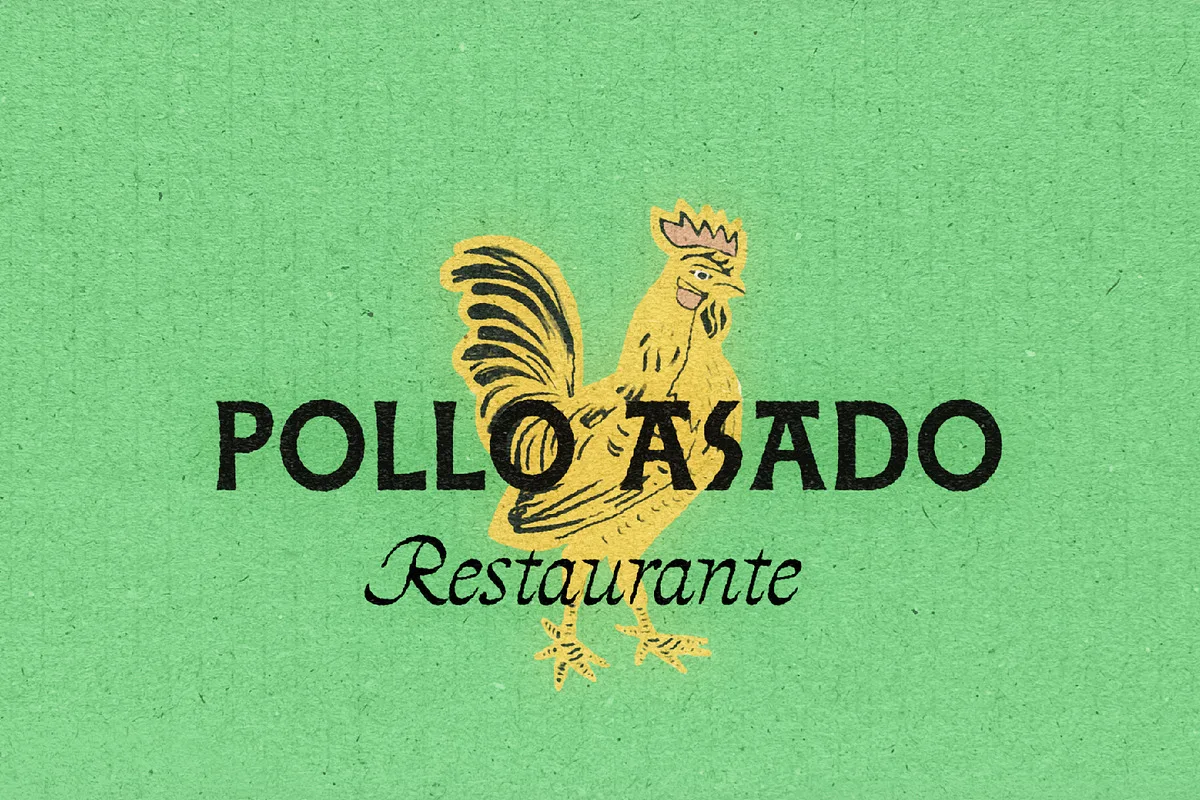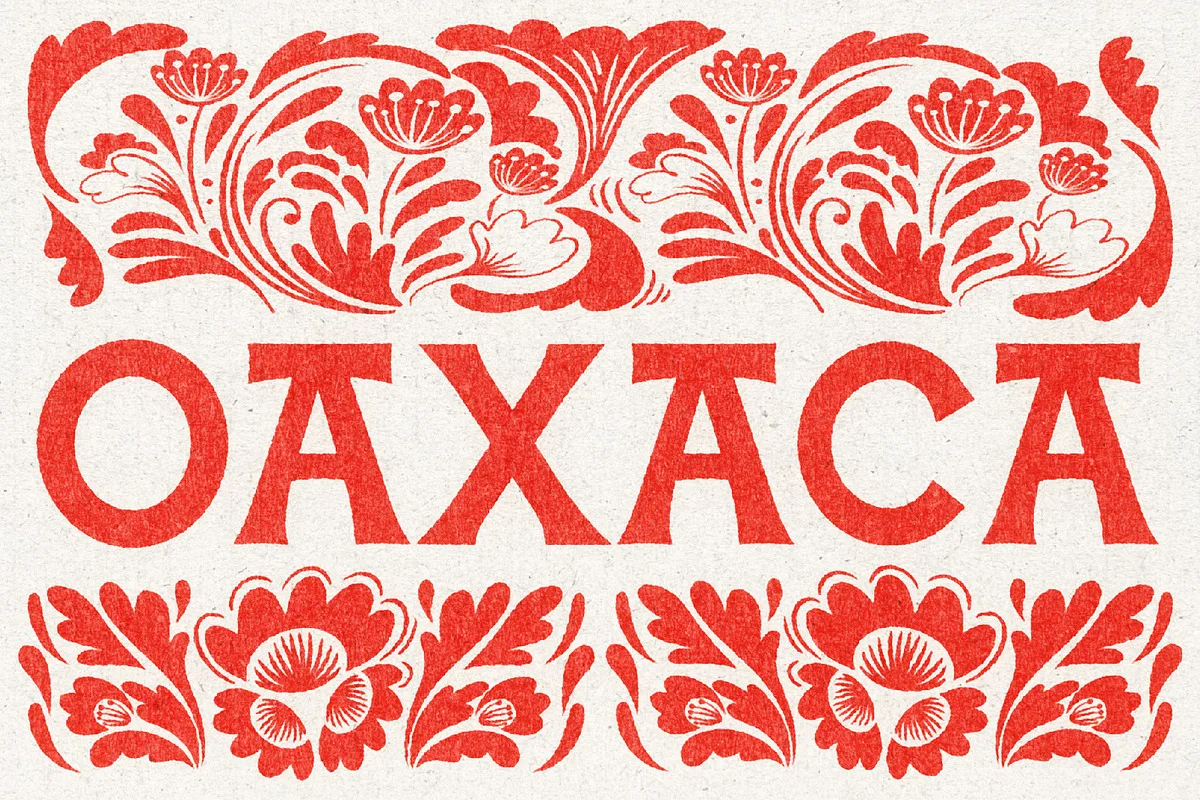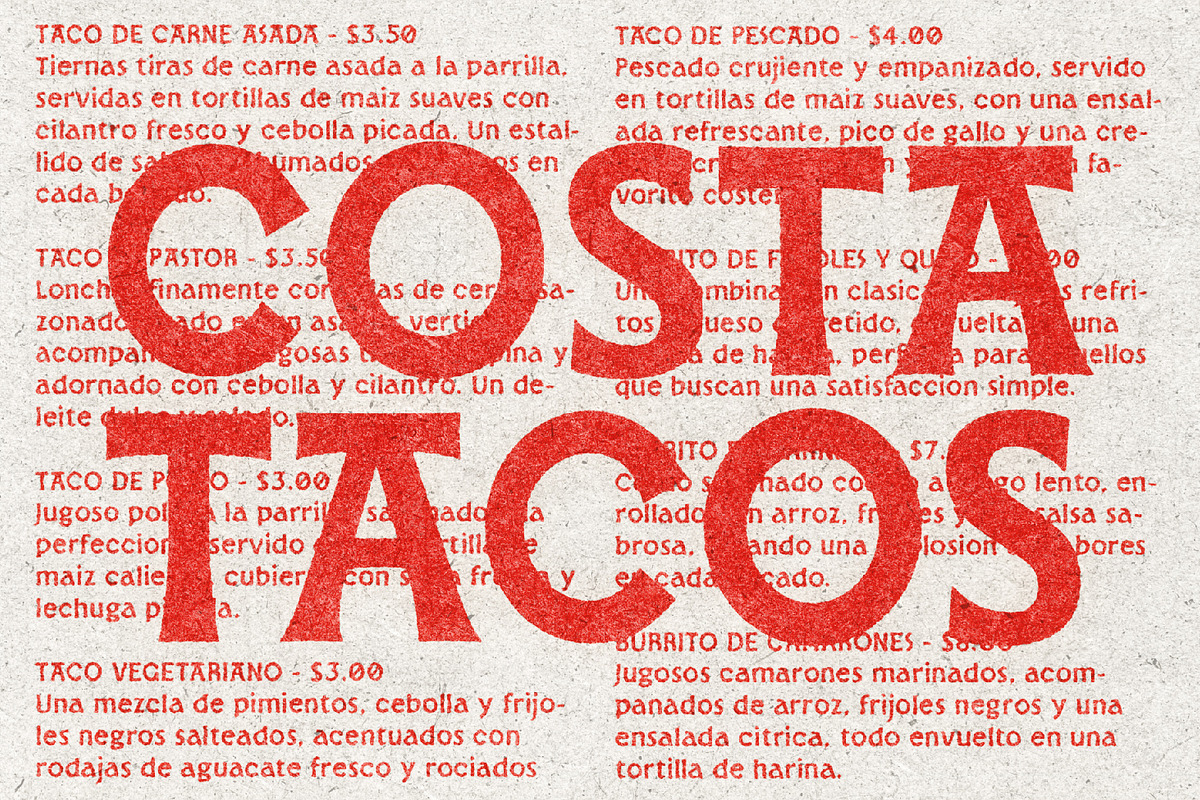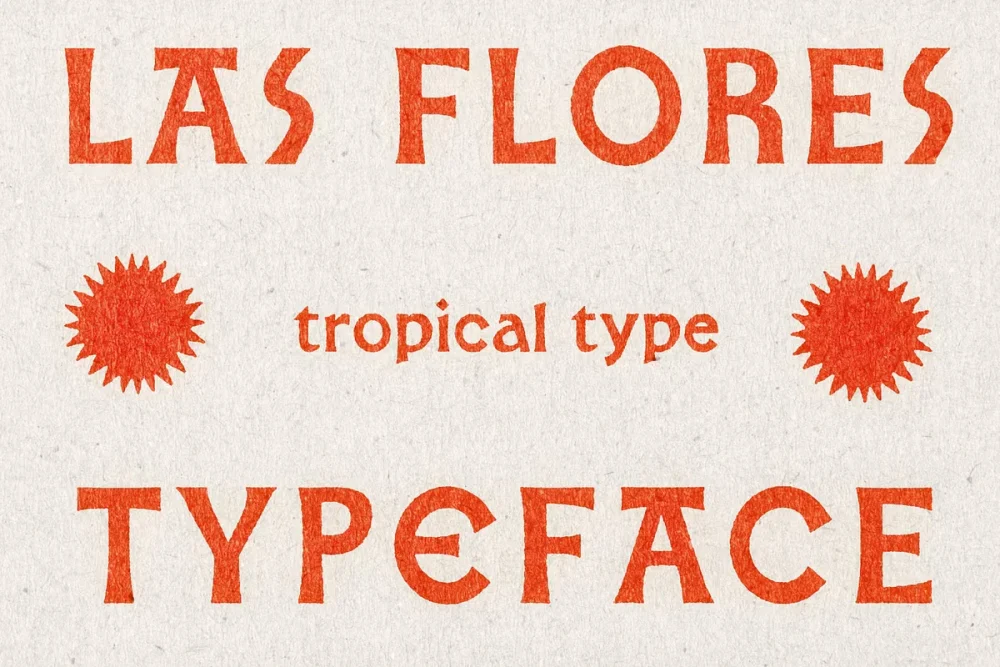
Las Flores is a serif typeface of Mexican influence, both modern and ancient. It pair perfectly with the directors italic and heyday display, both found in this shop! Throw a bit of texture on top for maximum nostalgia. Looks amazing on magazines, headlines, greeting cards, logos, quotes, posters and more!